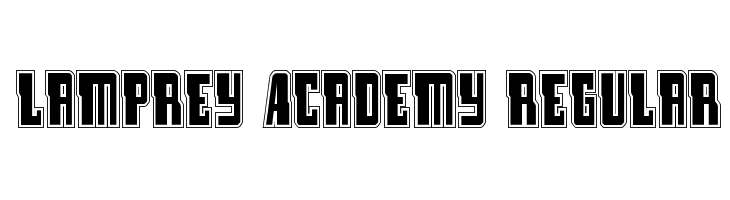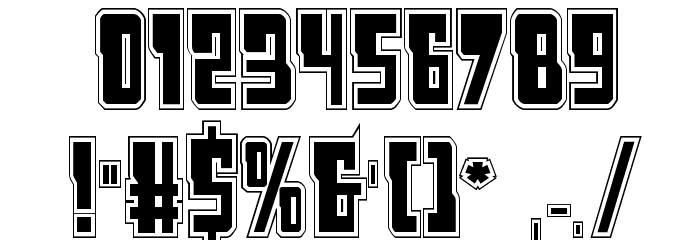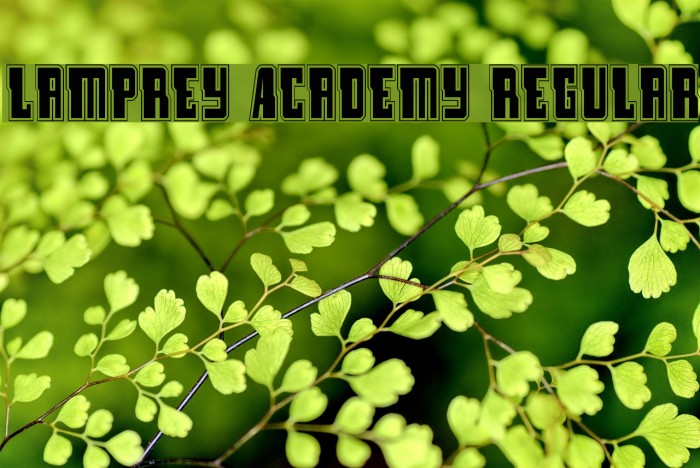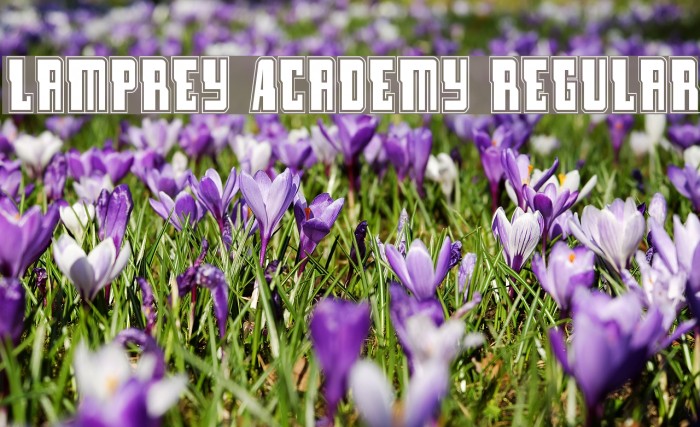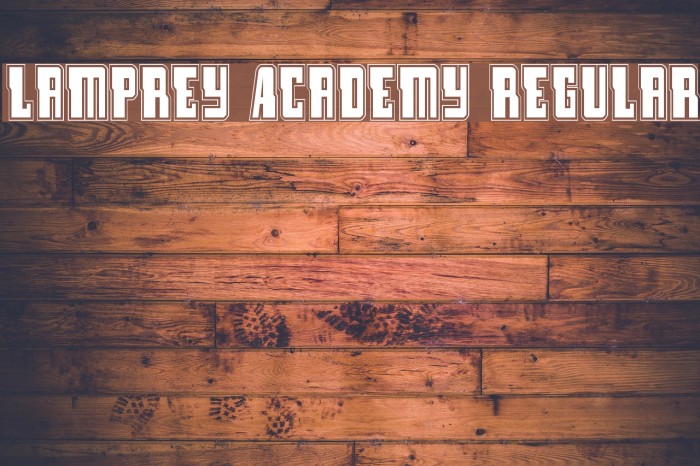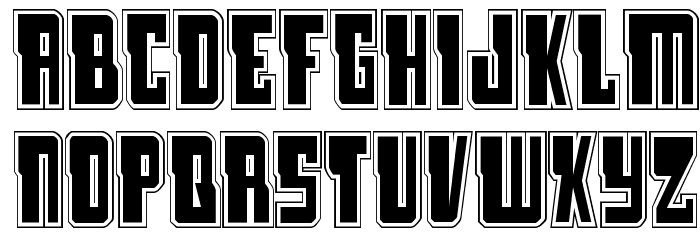
Lamprey Academy Regular Font
This font features a bold and striking design with a strong geometric influence. The characters are outlined with a thick border, creating a sense of depth and dimension. Each letter is crafted with sharp angles and clean lines, giving it a modern and edgy appearance. The uppercase letters are particularly prominent, with a uniform height and width that ensures consistency across the board. The numbers and special characters maintain the same bold style, making them easily legible and visually impactful. This font is ideal for projects that require a strong visual statement.
A bold, geometric font with thick outlines and sharp angles.
• Proposed Projects: Ideal for posters, logos, and headlines that need a strong visual impact.
• Category: Decorative/Display
• Contrast: High
• Overall Style: Modern
• Use Case: Headlines, Logos